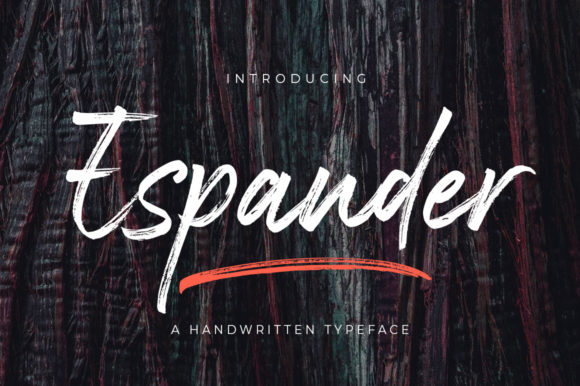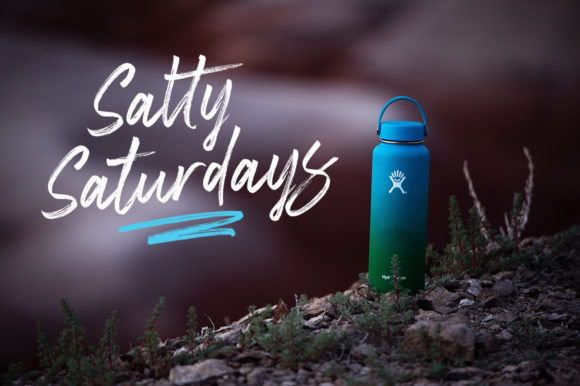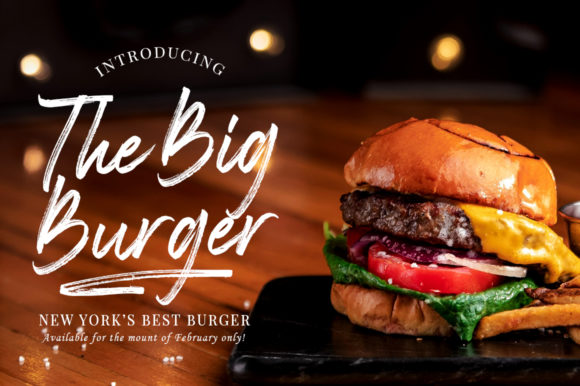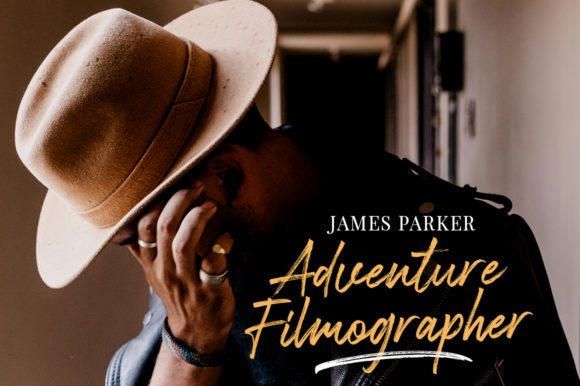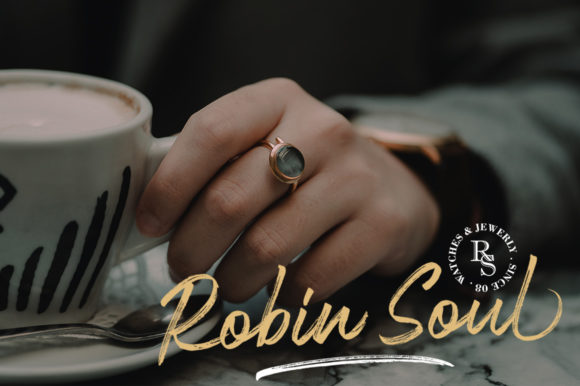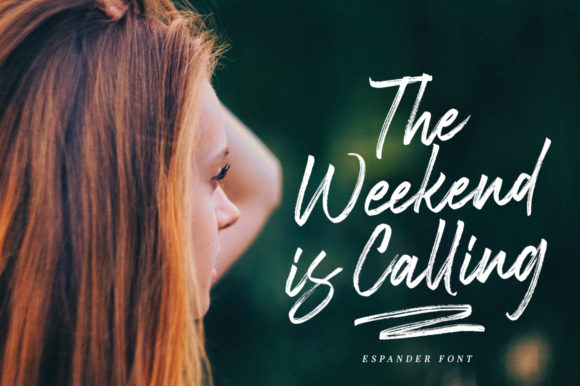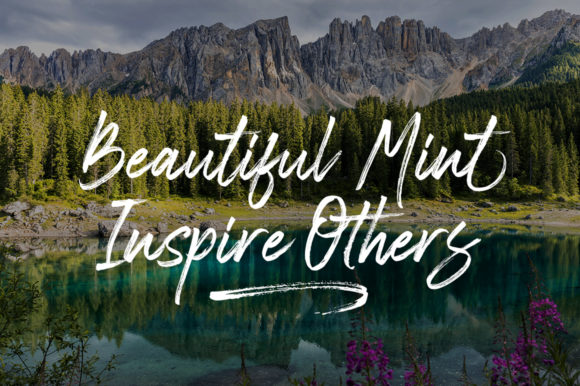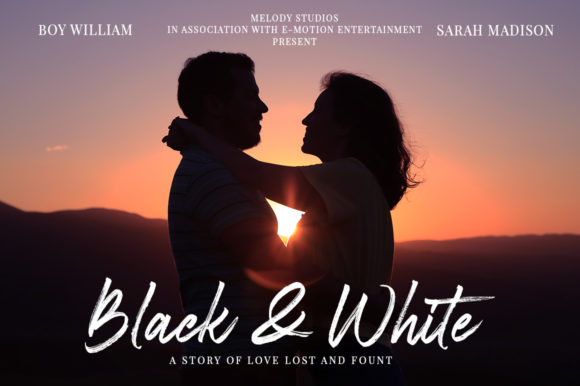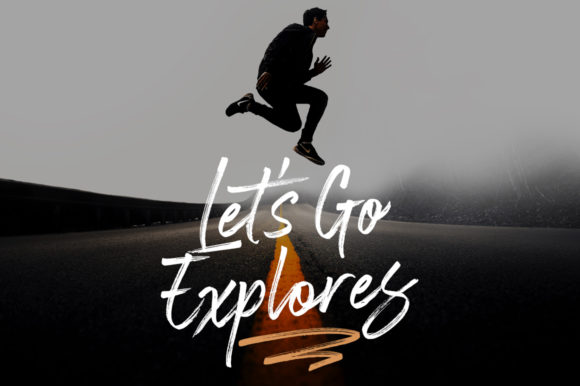
Espander Font
About Espander Font
Espander is a fun and playful handwritten font with a bold feel. Fall in love with its unique and authentic lettering!